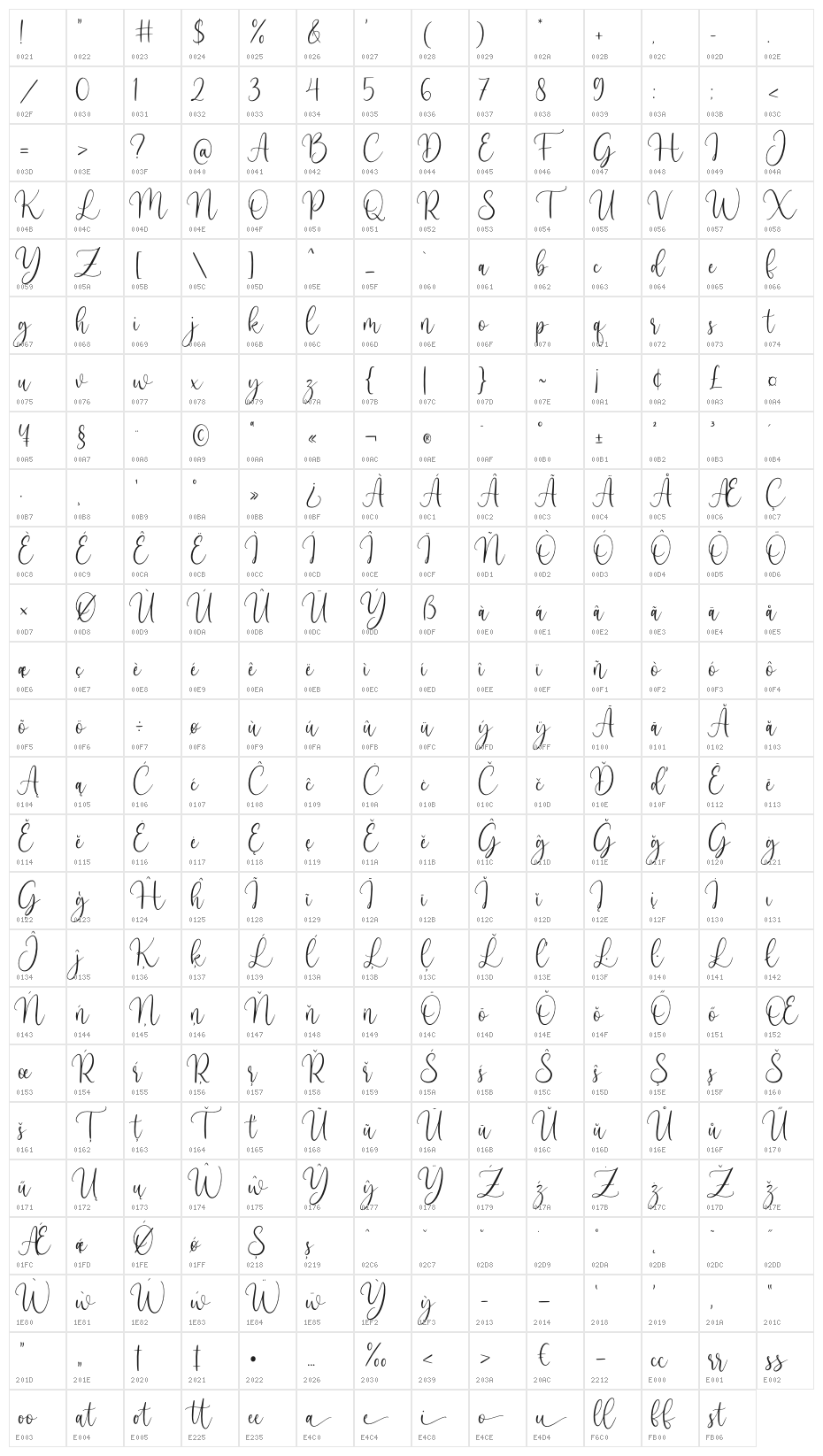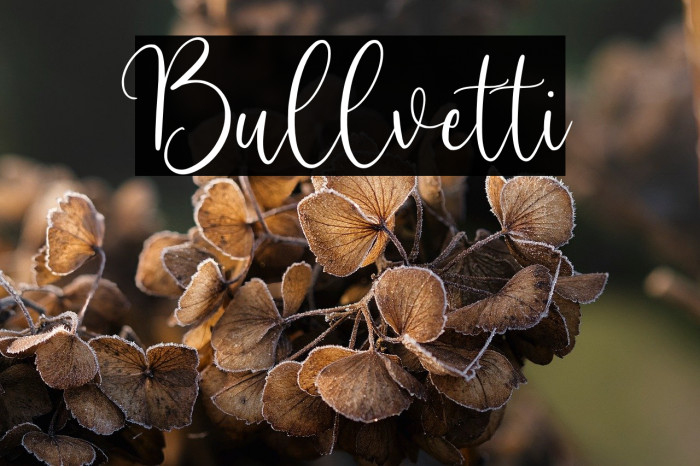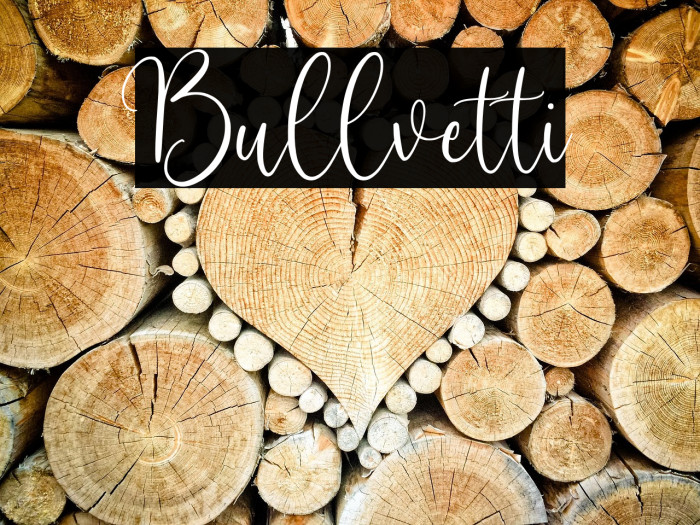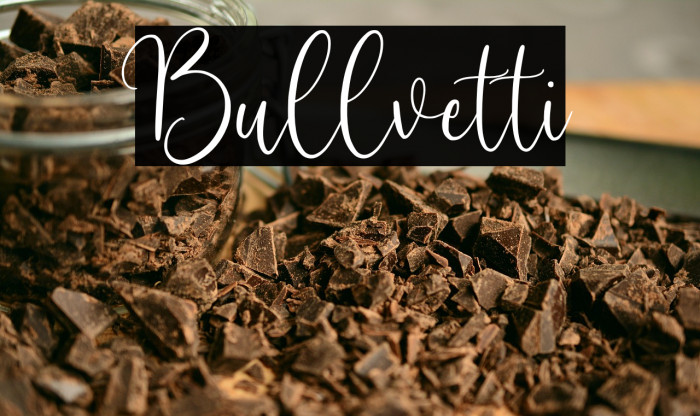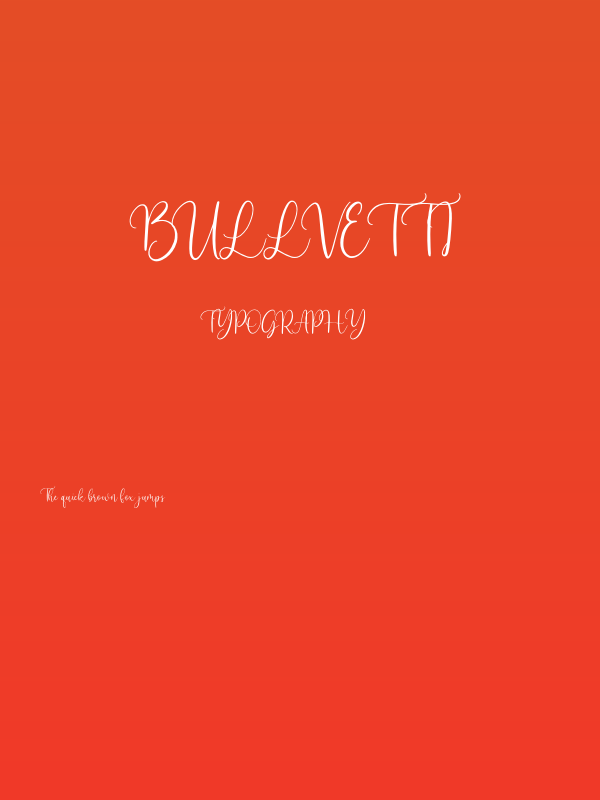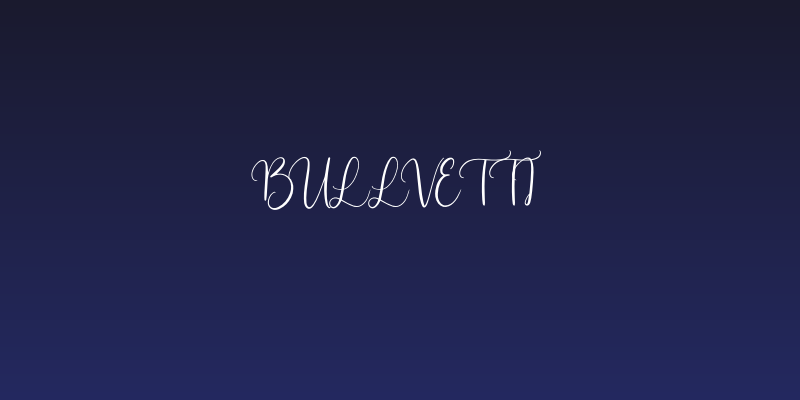
Bullvetti Font
Bullvetti Description
This elegant script font features a flowing, cursive style with a modern touch. The uppercase letters are characterized by their sweeping curves and delicate loops, giving them a graceful appearance. The lowercase letters maintain a consistent flow, with some letters featuring distinctive flourishes that add to the font's charm. The numerals are clear and easy to read, while the special characters are designed to complement the overall aesthetic. This font is perfect for projects that require a touch of sophistication and elegance.
| Use Case | Logos, Invitations, Decorative text |
| Proposed Projects | Ideal for wedding invitations, elegant branding, greeting cards, and upscale packaging. |